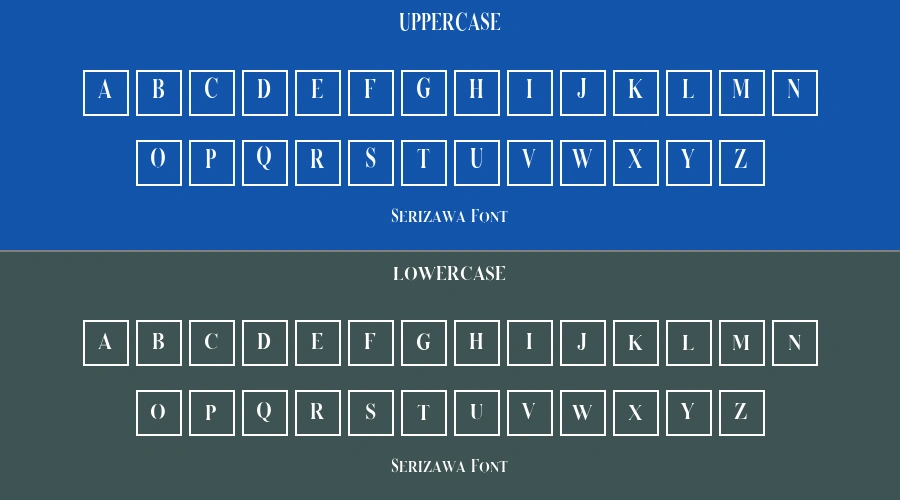
About Serizawa Font
Serizawa Font stands out for its distinctive combination of distinctive details and technical precision. Ideal for engineering drawings, it provides the reliability and traditional values that professional projects demand. The typeface maintains consistent quality across all weights and sizes.
Key features include refined tapered strokes and practical initial forms, enhancing typographic expression. In point-of-sale displays applications, Serizawa Font demonstrates exceptional detail retention. The counter aperture and engineering heritage contribute to its distinctive character and professional appeal.